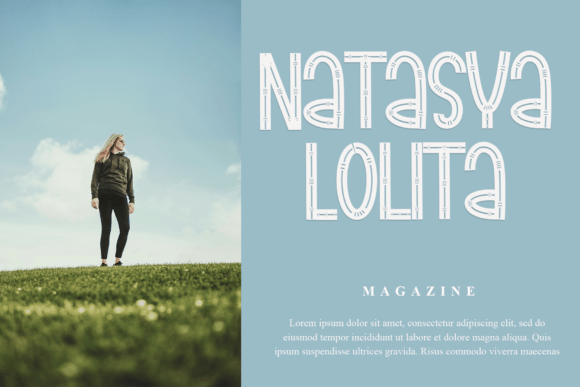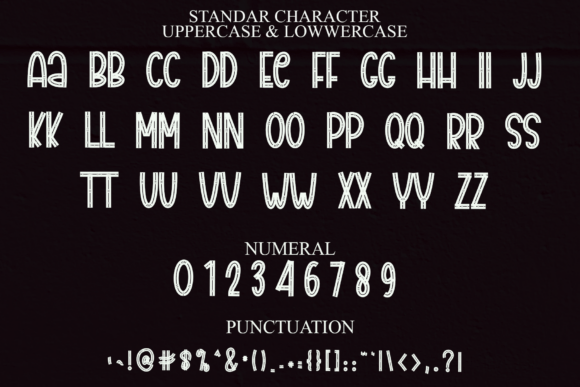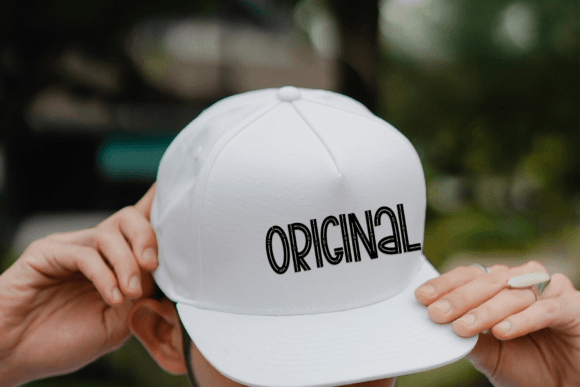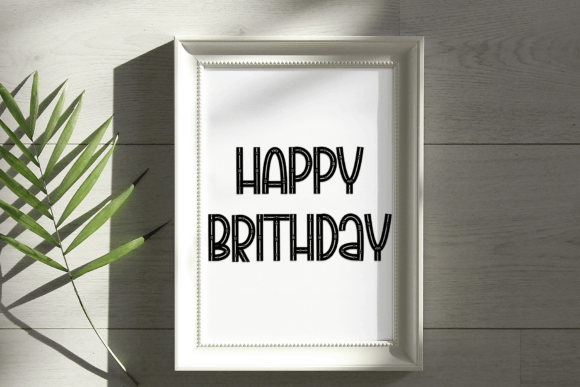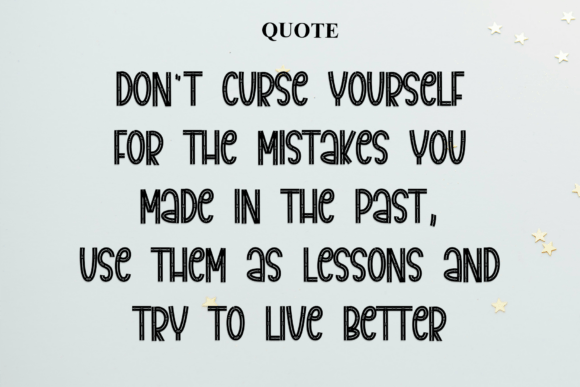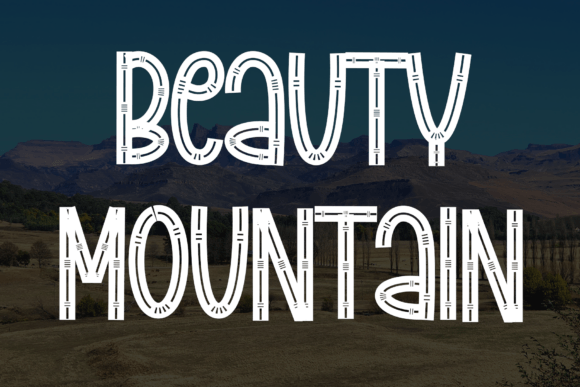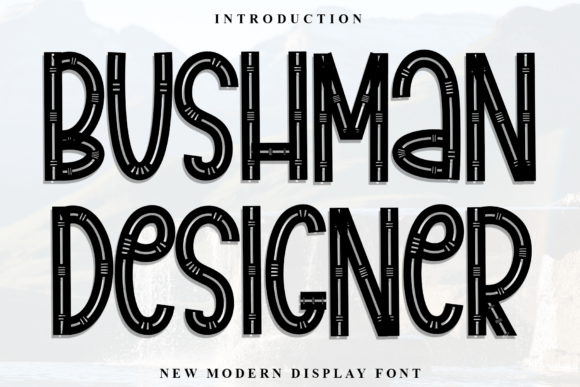
Bushman Designer Font: Elevate Your Designs with a Unique and Attractive Typeface
In the world of design, fonts play a crucial role in conveying messages, expressing emotions, and creating visual identities. Among the numerous font styles available, the Bushman Designer Font stands out for its distinctive and captivating aesthetic. This beautiful font is crafted with a soft touch, making it a perfect choice for designers seeking to add a personal touch to their creations.
The Distinctive Features of Bushman Designer Font
Bushman Designer Font is characterized by its unique and distinctive strokes, which set it apart from other fonts. The font’s design is thoughtful and deliberate, with a focus on creating a sense of harmony and balance. Each character is carefully crafted to convey a sense of elegance and sophistication, making it an excellent choice for a wide range of design applications.
One of the notable features of Bushman Designer Font is its extensive character set. The font includes a vast array of characters, making it versatile and adaptable to various design needs. Whether you’re working on a handicraft project, creating visual art, or designing a logo, this font has got you covered.
Versatility and Compatibility
The font’s natural style makes it an excellent choice for a wide range of products, from digital media to print materials. Whether you’re designing a brochure, a website, or a social media graphic, Bushman Designer Font can help you create a visually appealing and cohesive look.
Why Choose Bushman Designer Font?
So, what makes Bushman Designer Font an attractive choice for designers and crafters? Here are a few compelling reasons:
• Unique and distinctive style: Bushman Designer Font boasts a one-of-a-kind aesthetic that will set your designs apart from the crowd.
• High versatility: The font’s extensive character set and compatibility with various applications make it a versatile choice for a wide range of design needs.
• Elegant and sophisticated: The font’s soft touch and thoughtful design create a sense of elegance and sophistication, perfect for designs that require a touch of refinement.
Applications and Inspiration
Bushman Designer Font is suitable for a wide range of design applications, including:
• Handicrafts: Use the font to create unique and personalized handicrafts, such as cards, gift tags, and other paper crafts.
• Visual art: Incorporate Bushman Designer Font into your visual art projects, such as illustrations, paintings, and mixed media collages.
• Logo design: Use the font to create custom logos for businesses, organizations, or personal projects.
• Digital media: Apply Bushman Designer Font to your digital media projects, such as social media graphics, blog posts, and website designs.
In conclusion, Bushman Designer Font is a beautiful and attractive font that offers a unique and distinctive style, high versatility, and ease of use. Its elegant and sophisticated aesthetic makes it perfect for a wide range of design applications, from handicrafts to digital media. Whether you’re a professional designer or a crafter, Bushman Designer Font is an excellent choice for adding a personal touch to your creations.